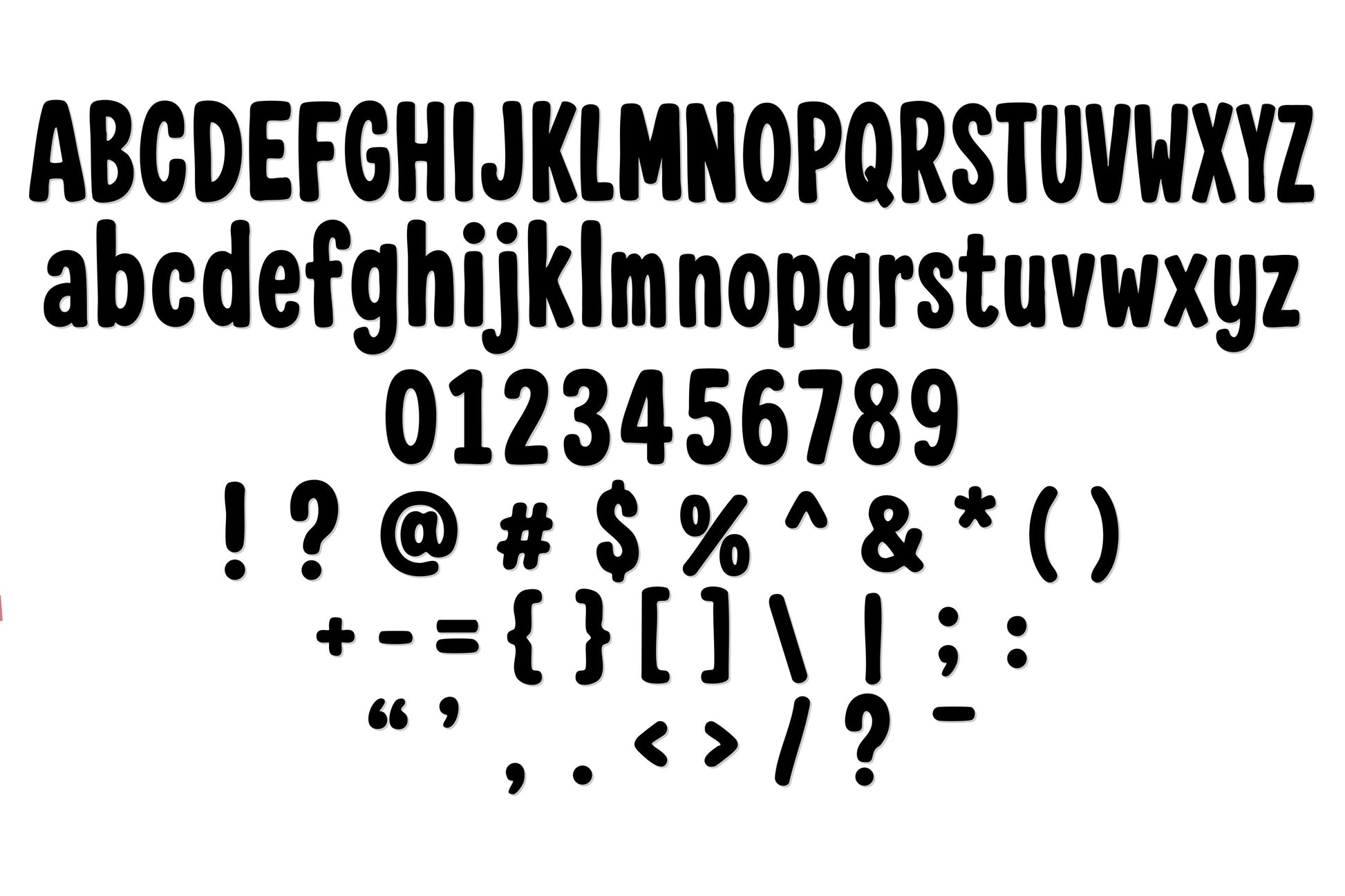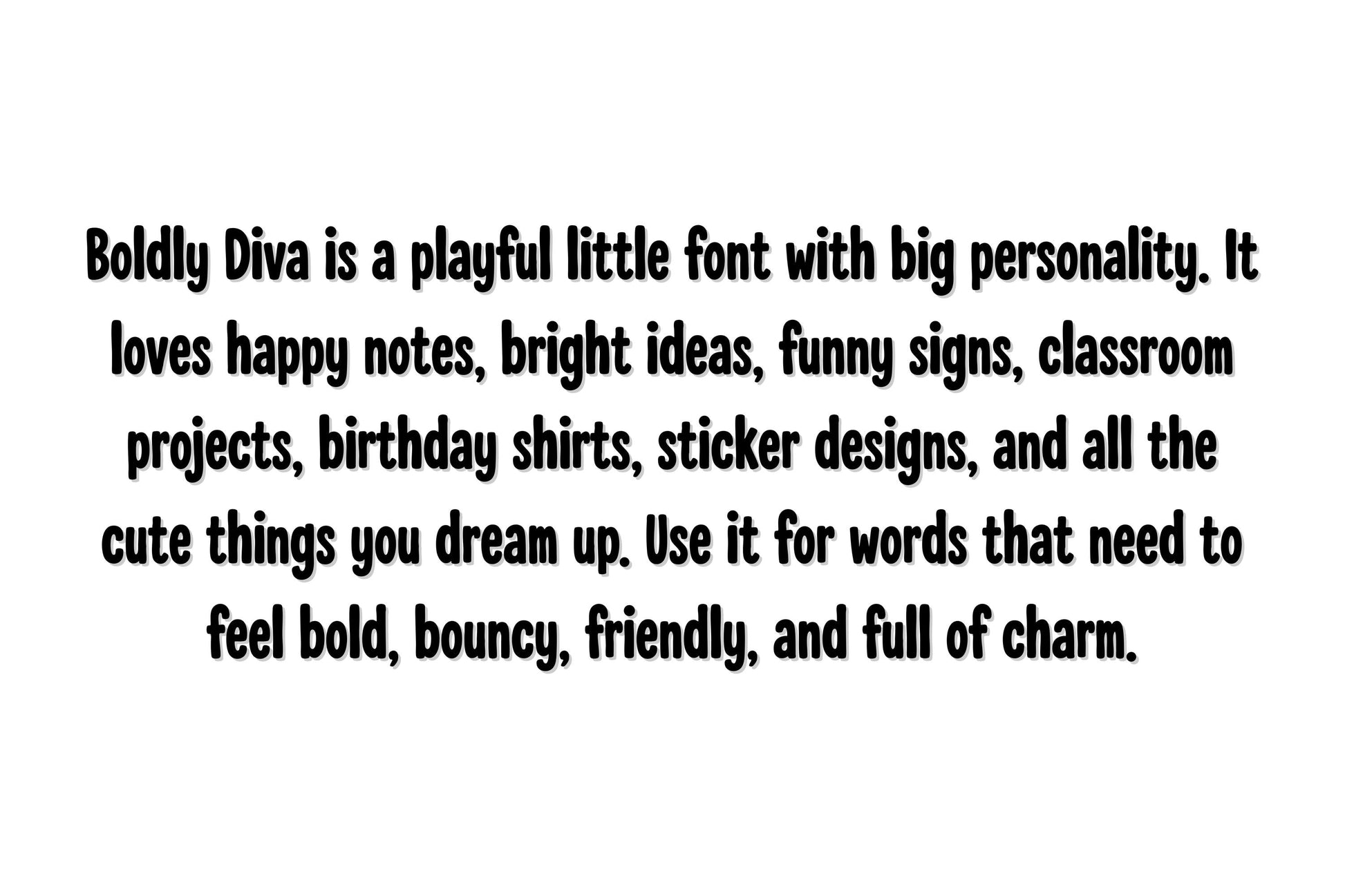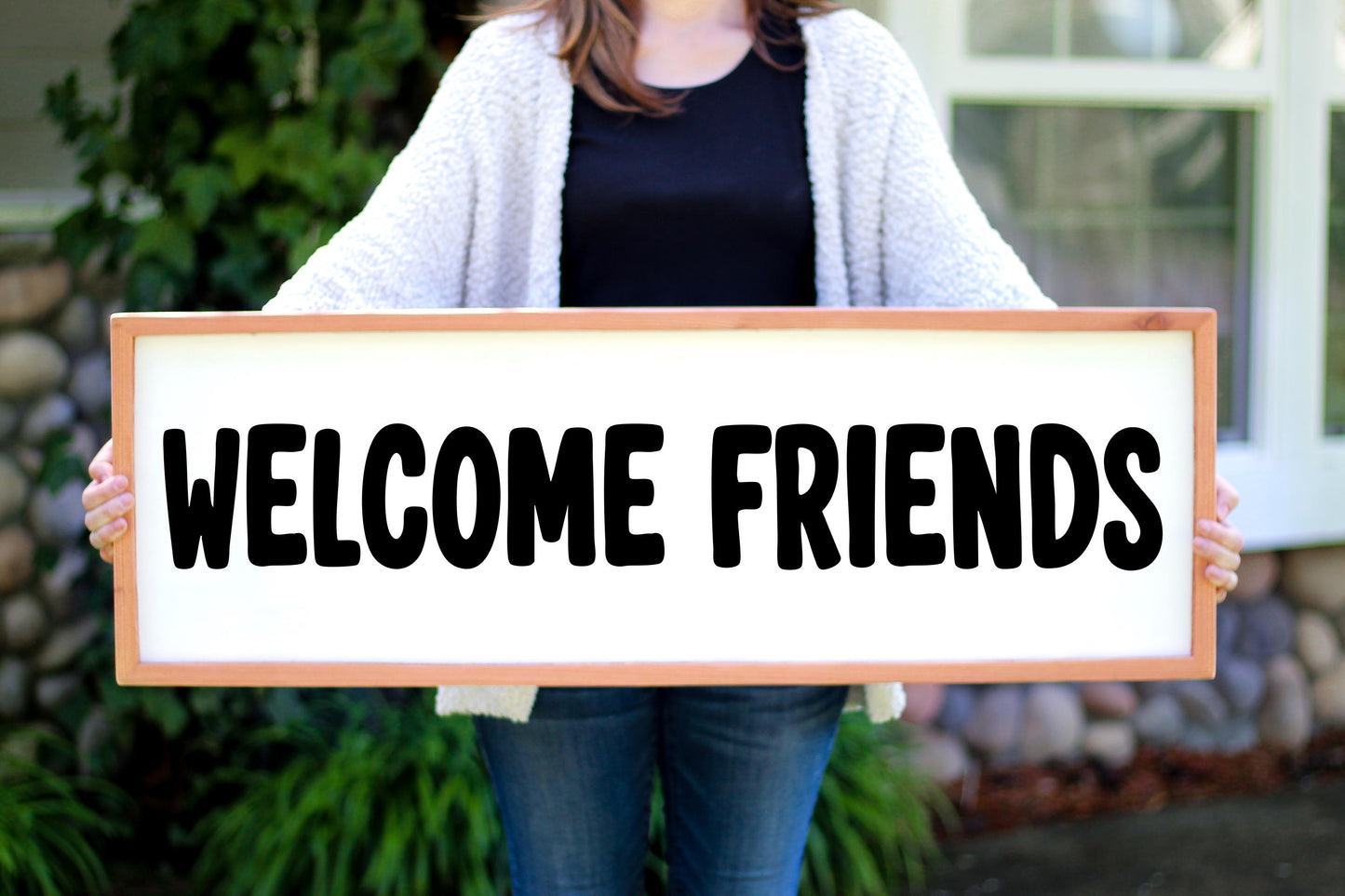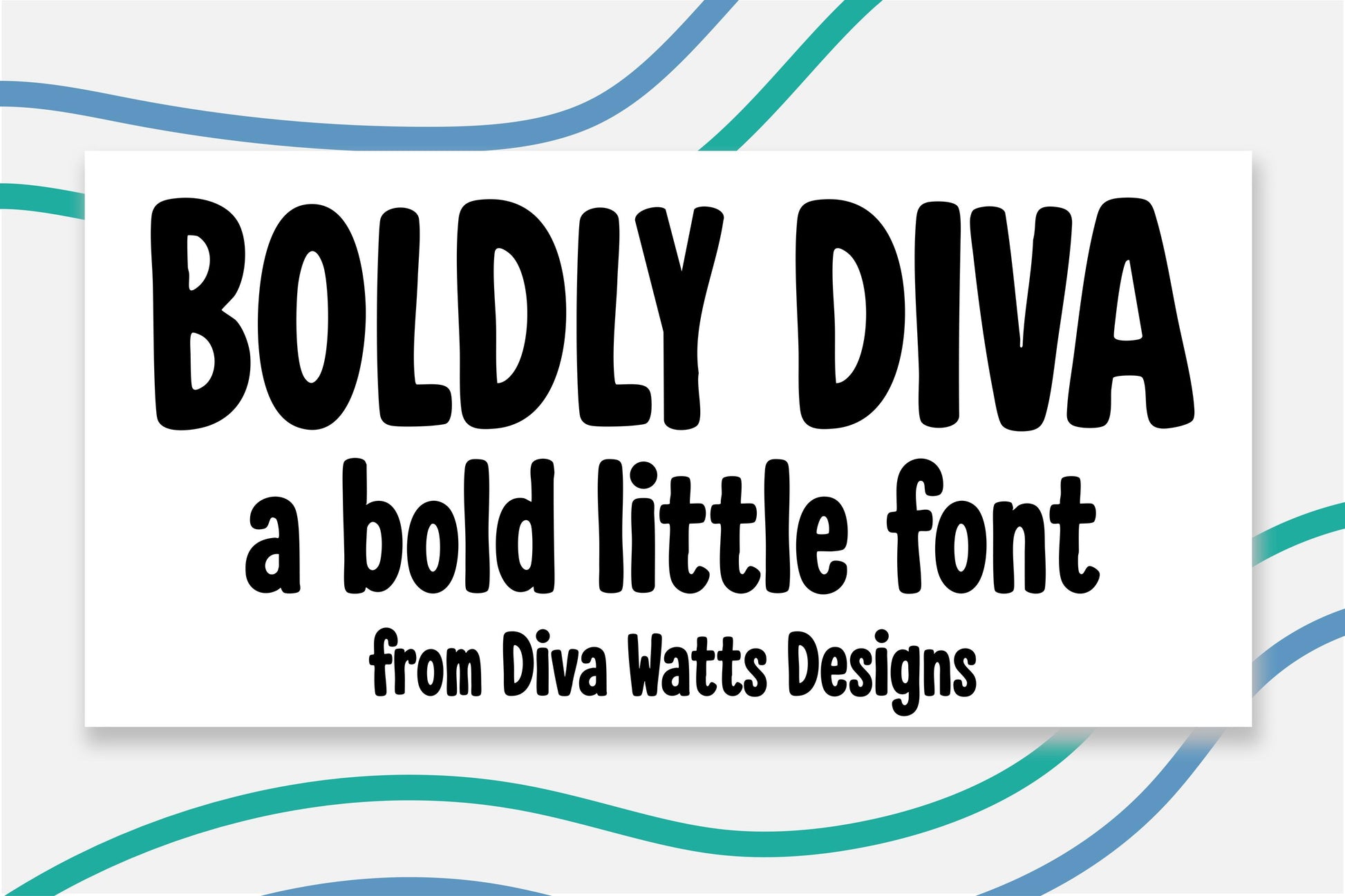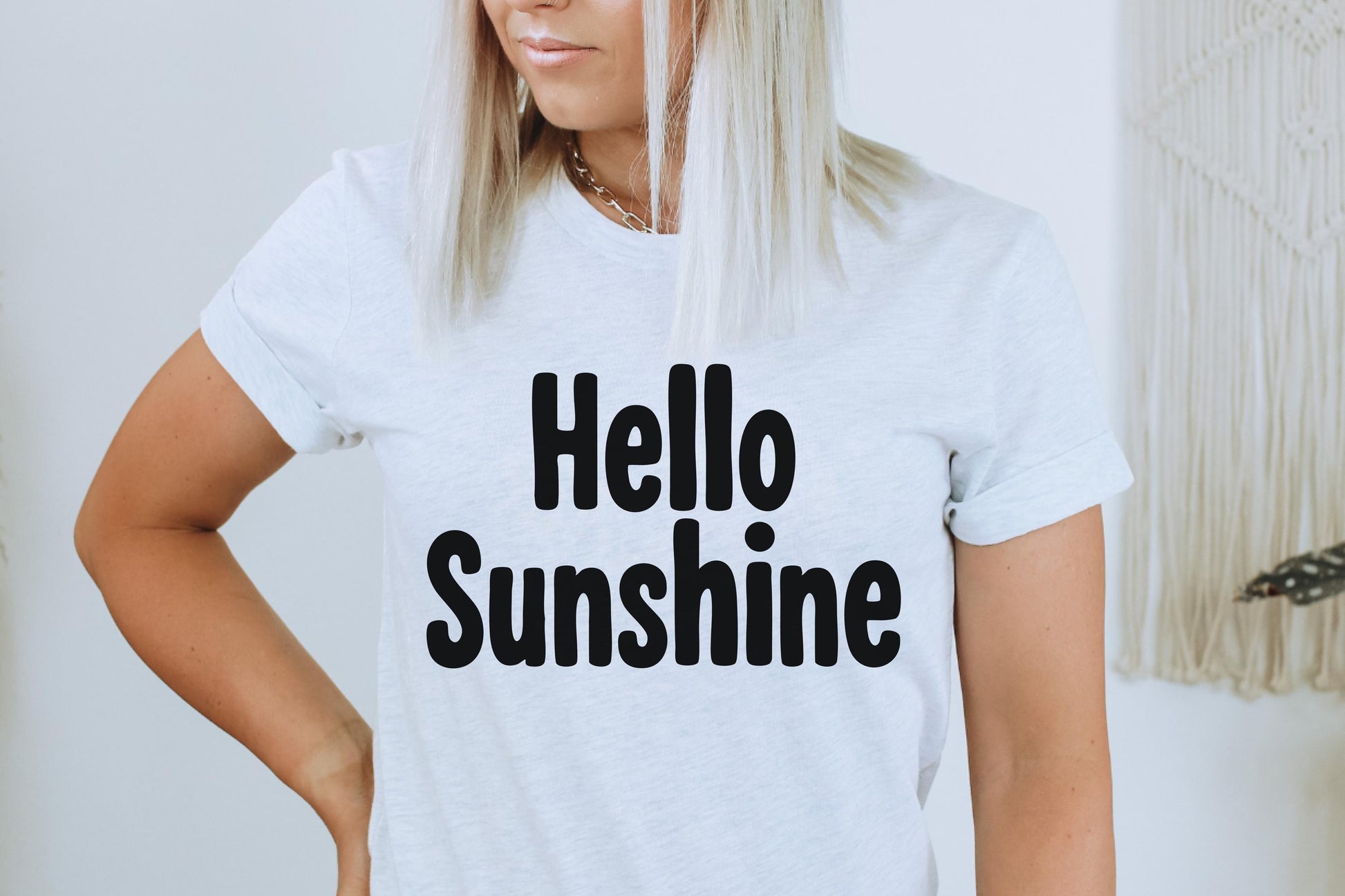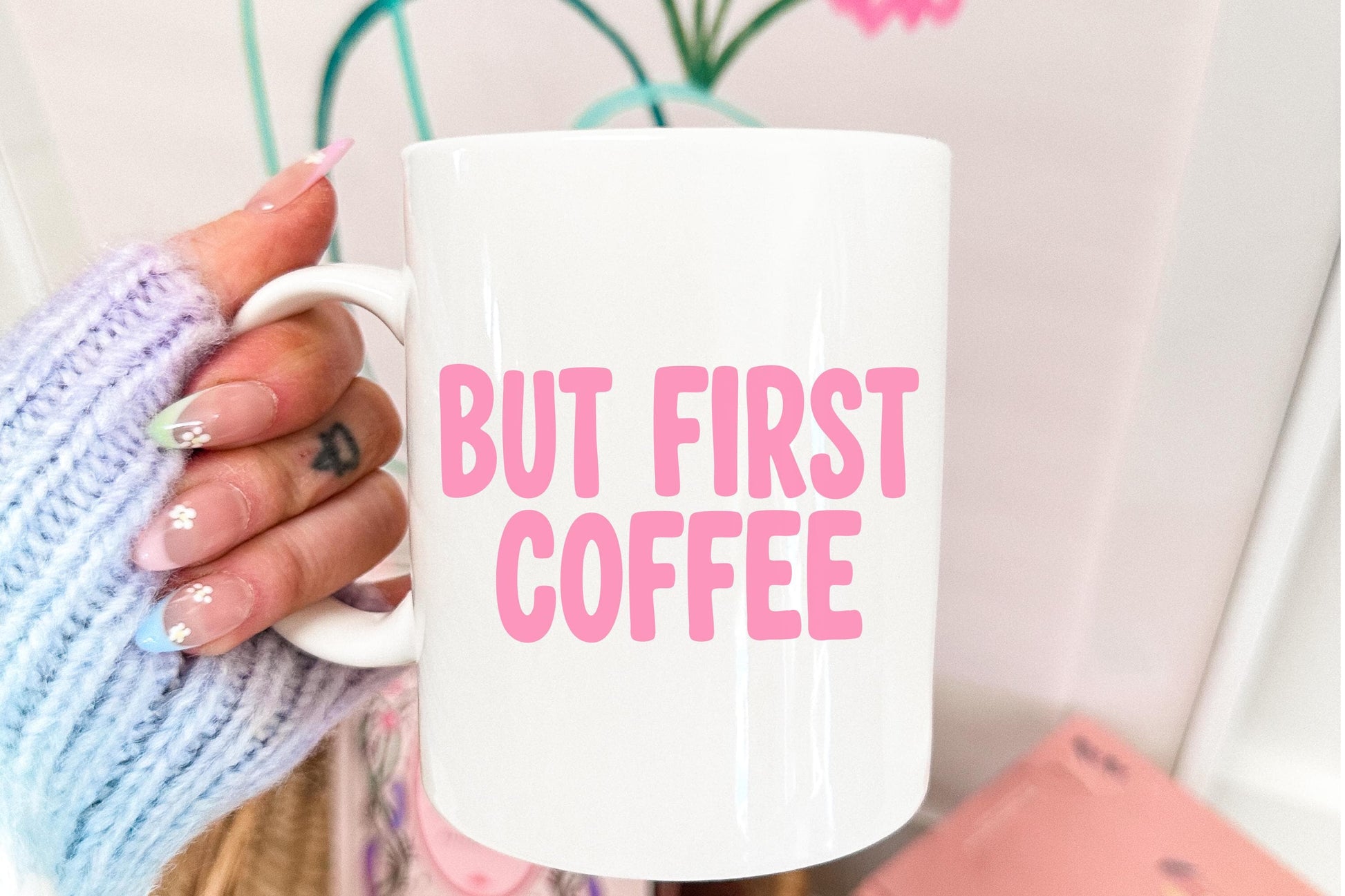
Boldly Diva is a playful little font with big personality. It loves happy notes, bright ideas, funny signs, classroom projects, birthday shirts, sticker designs, and all the cute things you can dream up. With its bold, bouncy, and friendly style, this font helps your words stand out while adding charm and character to every project.
Whether you're creating classroom materials, personalized gifts, party decorations, signs, mugs, stickers, or crafting projects, Boldly Diva delivers a fun handwritten look that's easy to use and perfect for makers of all skill levels.
The included laser-friendly version has been pre-kerned so the letters already touch, making it easier to create connected words for laser cutting projects. Simply type your word or phrase and weld the letters together in your design software. Depending on the letter combination, you may occasionally need to manually move a few letters slightly closer before welding for the best connection.
Font Features:
• Uppercase letters
• Lowercase letters
• Numbers
• Punctuation and symbols
• Bold handwritten display style
• Friendly and playful character design
• Easy-to-read lettering
• Bonus laser-friendly version included